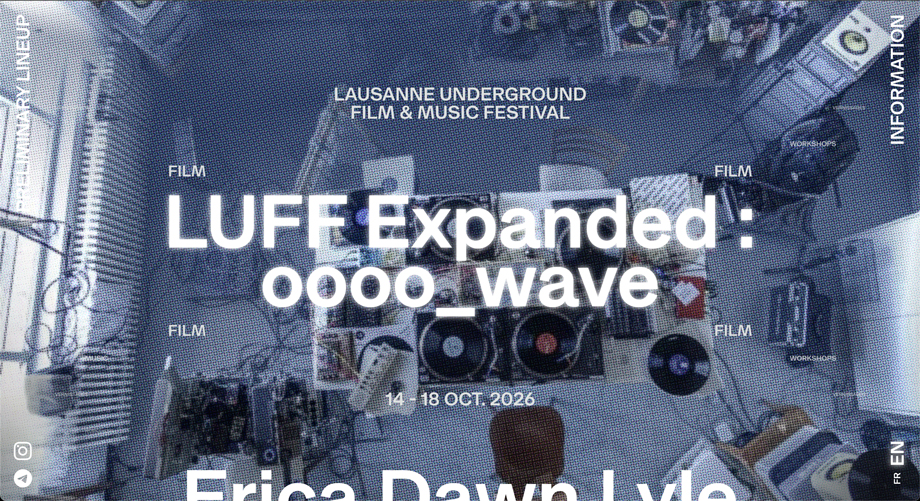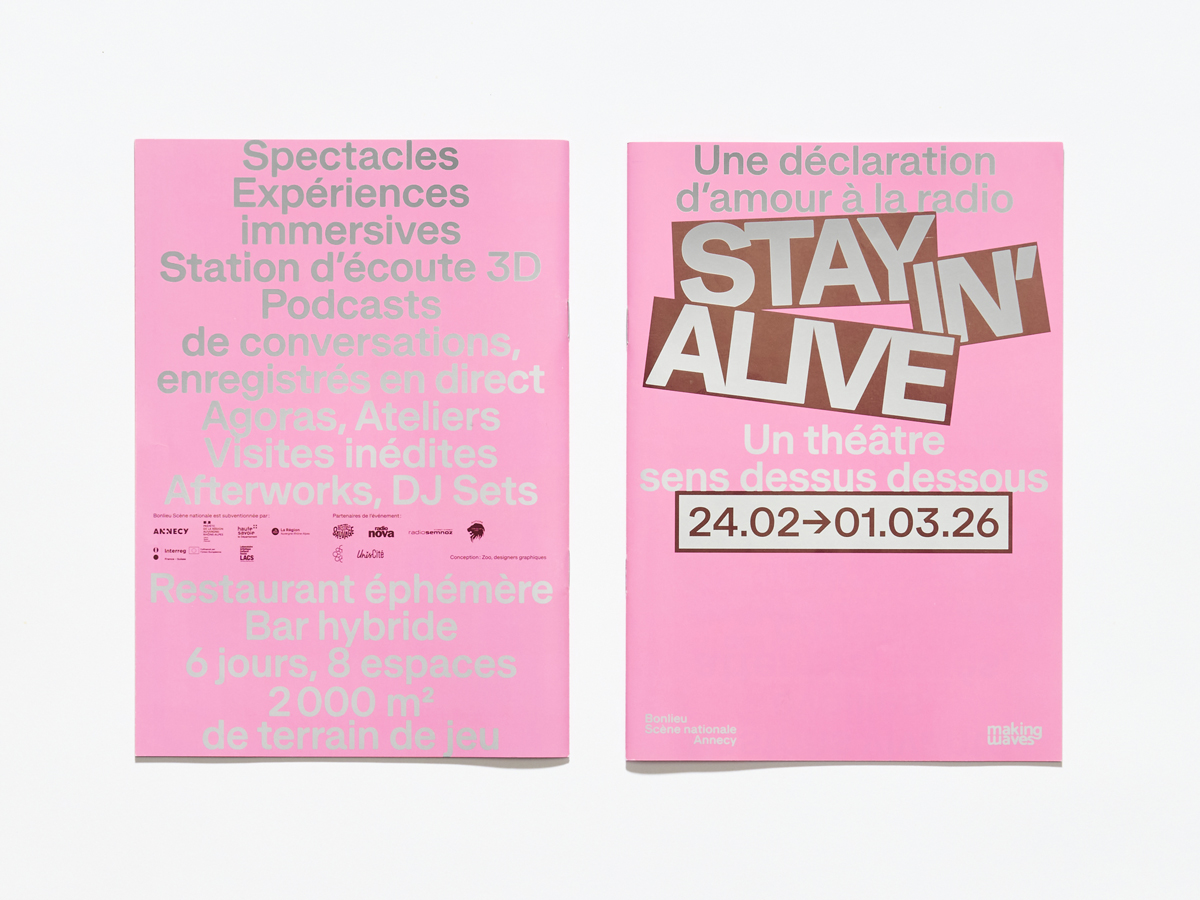
22 styles, 11 weights, 1 variable font
From Hairline to Ultra, with italics
A new sans serif family joining our library, Metra is the 2.0 extended version of an earlier release by Hugo Le Corre, a multifaceted sans serif of generous appearance. Conceived as a ‘mixed breed’ typeface, Metra seeks to have two archetypal type genres, Grotesk and Geometric, meet and merge into a singular and cohesive design. Characterised by their plenteous steadiness, large x-height and flared capital M, the initial cuts were augmented with their matching italics and reinforced with new styles. The 2.0 family entails a solid fold of 22 styles and a high-scale character set for Latin-based languages. These include Vietnamese, better support for African languages like Hausa, Igbo, Lingála, as well as the Pan-Nigerian alphabet, in the tracks of Christoph Koeberlin’s great work on Latin character sets. The Metra family sees two stylistic sets colliding: Grotesk and Geometric. Insuring a versatile usage, they feature both letter and number alternates and round off this very complete release.
(Grotesk Set)
(Geometric Set)